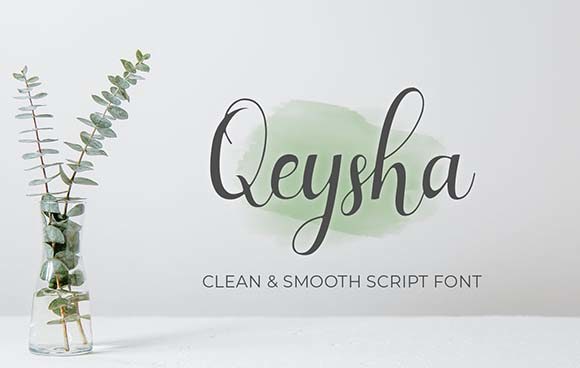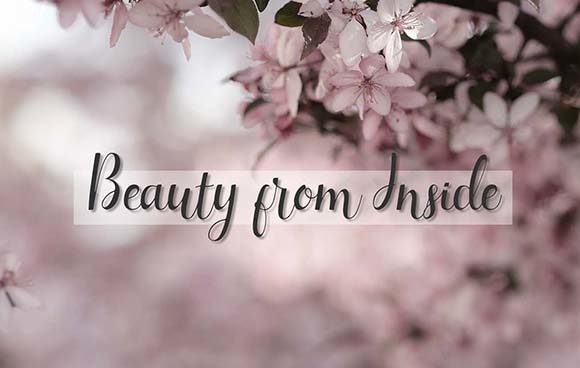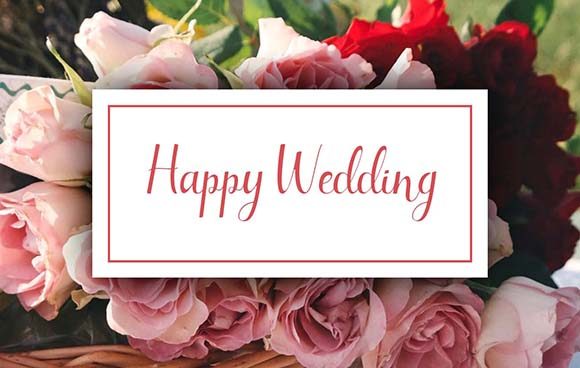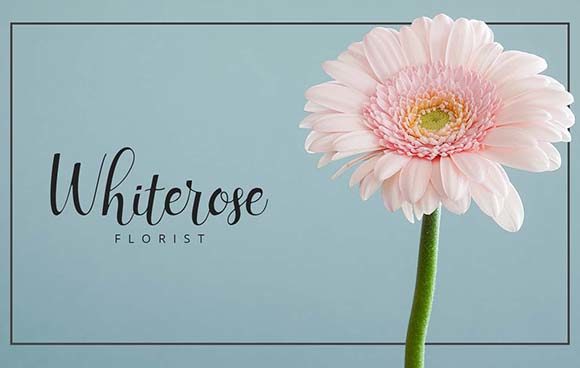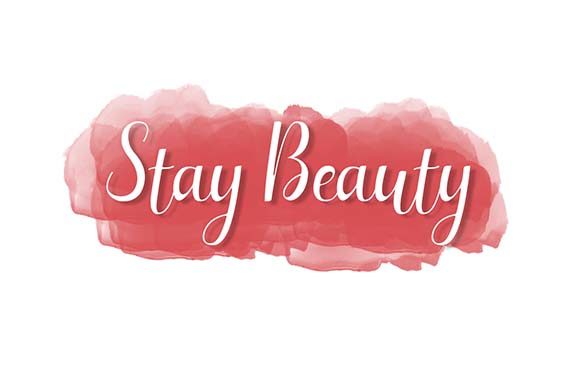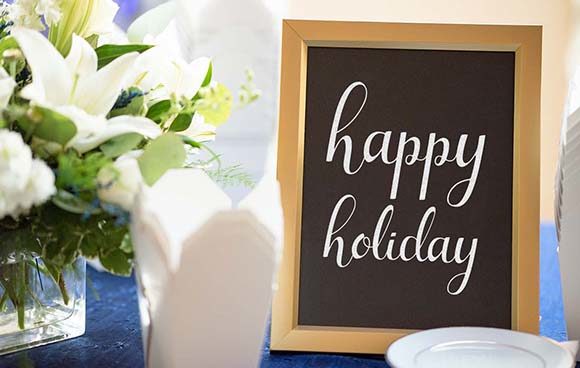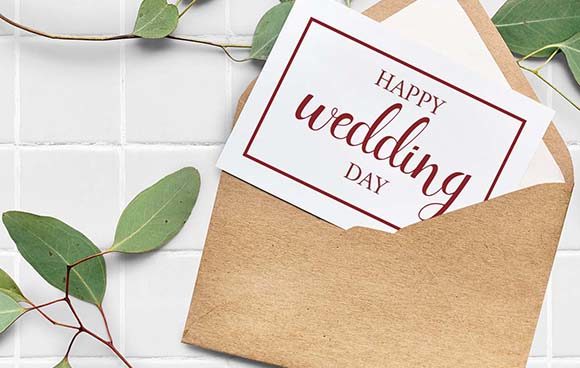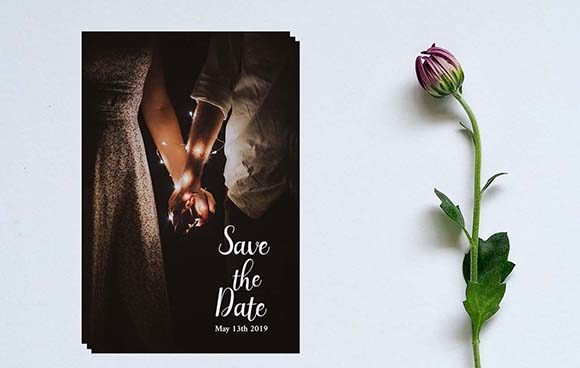
Qeysha Script Font
About Qeysha Script Font
The Qeysha is a beautiful script font. It has an elegant and feminine style and will add a luxurious touch to your designs.
It’s suitable for logos, wedding invitations, birthday cards, quotes, headlines, magazines, and much more!